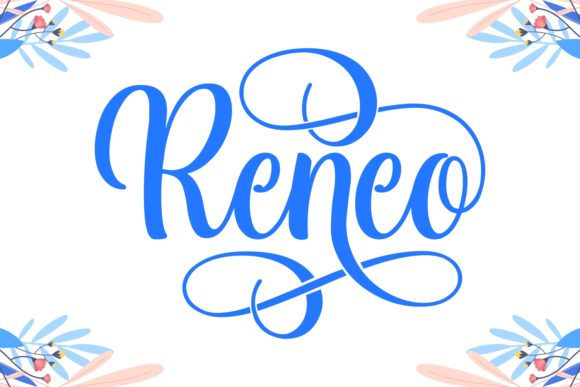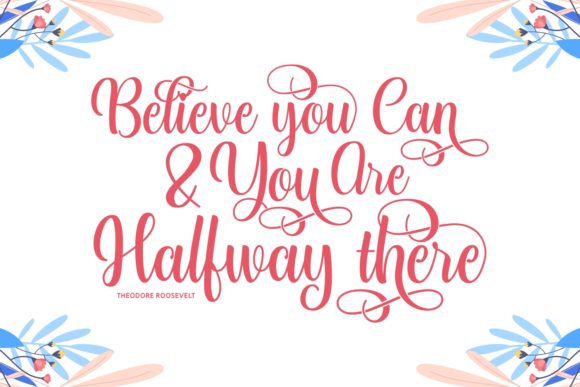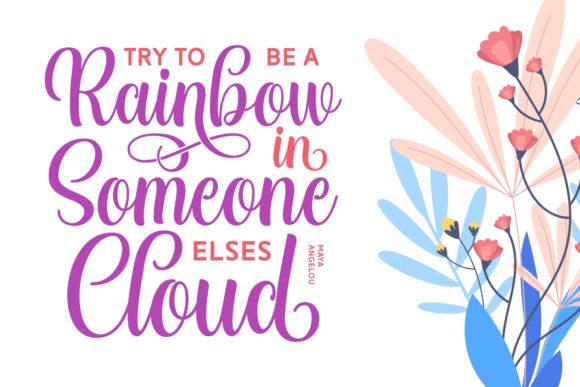
Reneo Font
About Reneo Font
Reneo is an incredibly playful script that contains a wide range of beautiful PUA-encoded swashes. It will turn any craft project into an inspiring piece of art. Get it now, and use Reneo for branding, photography, invitations, quotes, watermarks, advertisements, product designs, labels, and much more!